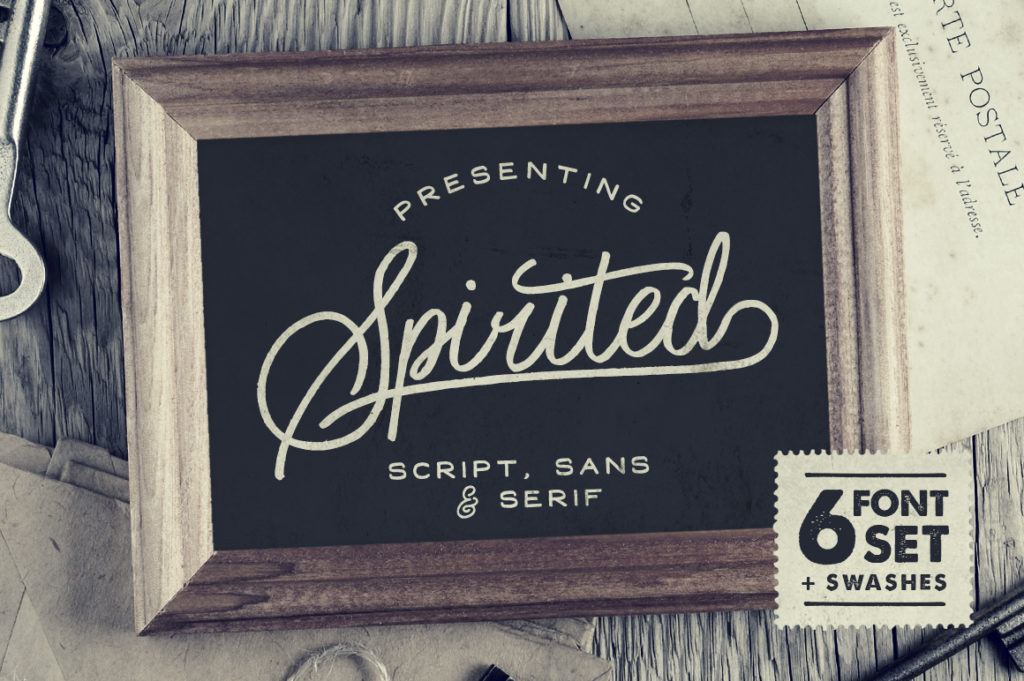
Spirited 6 Fonts Set (Script, Serif, Sans + Swash)
Spirited Font Set by Set Sail Studios is a free hand-drawn typeface set including six lovingly hand-made fonts. Each has been carefully designed to work in harmony with each other, allowing you to create beautiful & professional looking typography in a flash.
• Spirited Script Regular & Bold
• Spirited Serif Regular & Bold
• Spirited Sans Regular & Bold
• Spirited Swash Regular & Bold